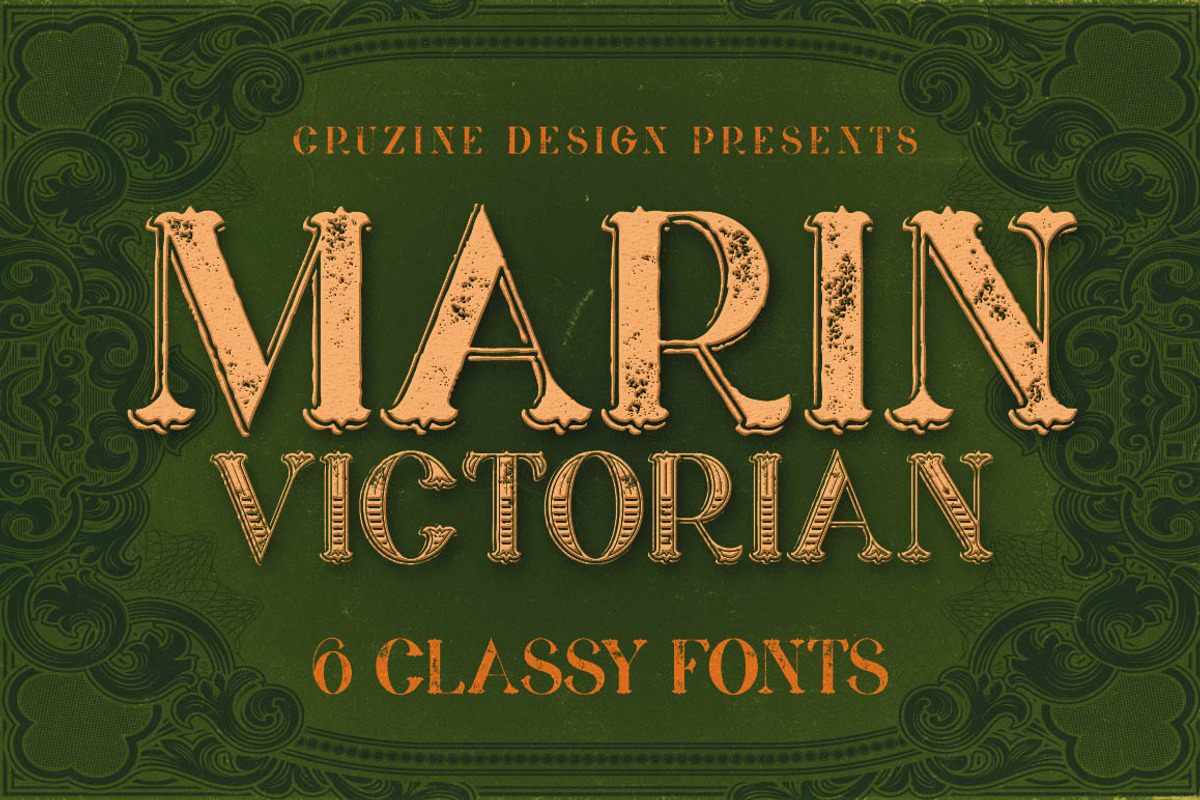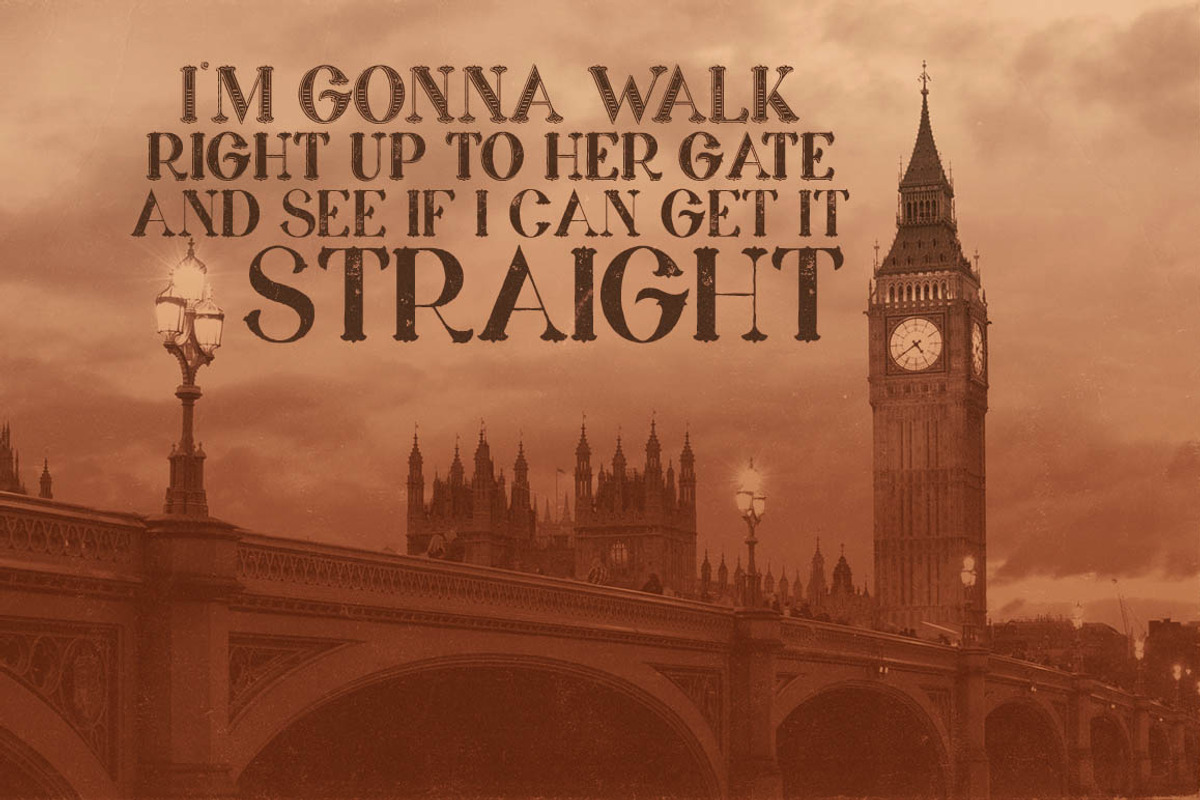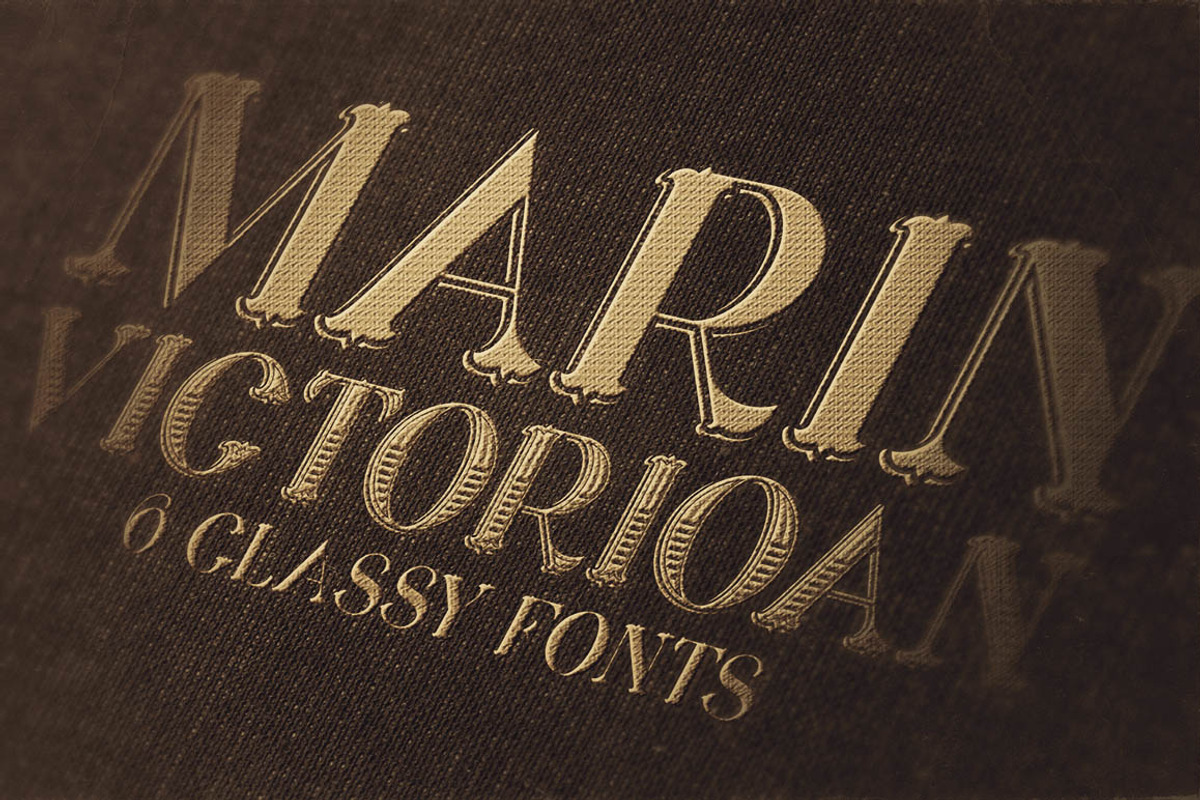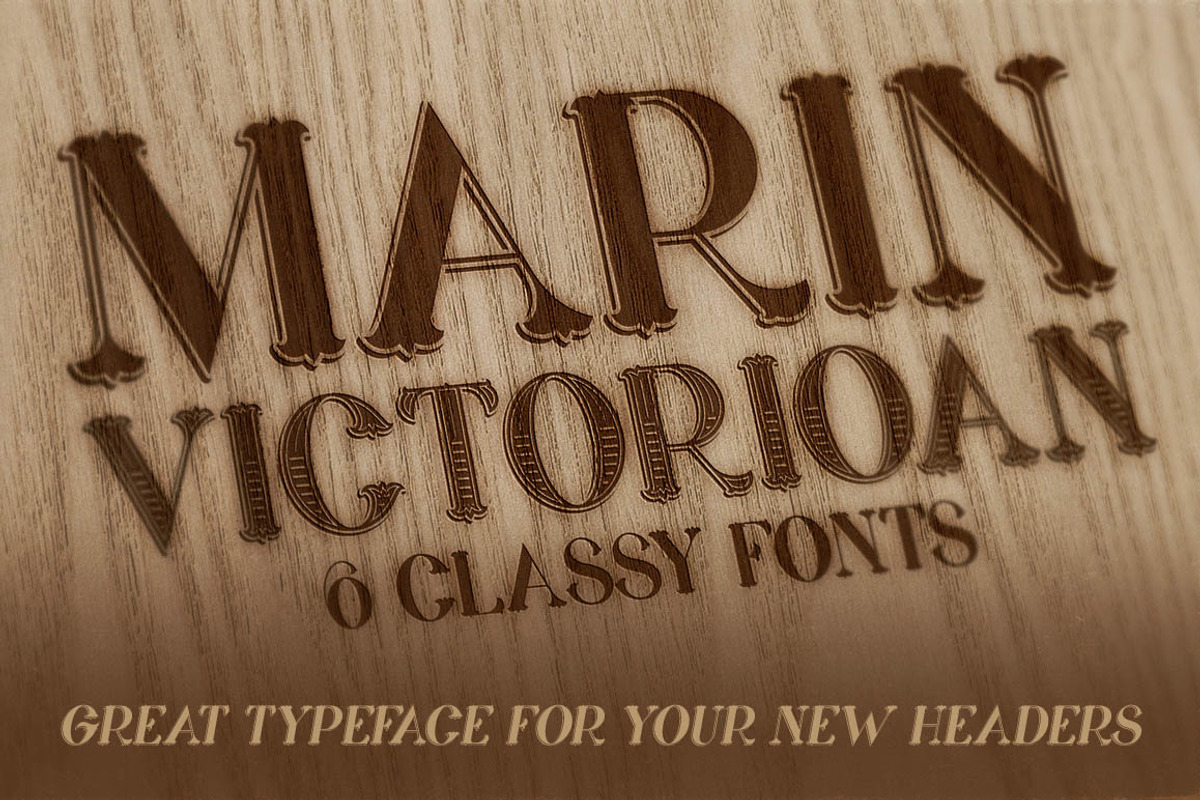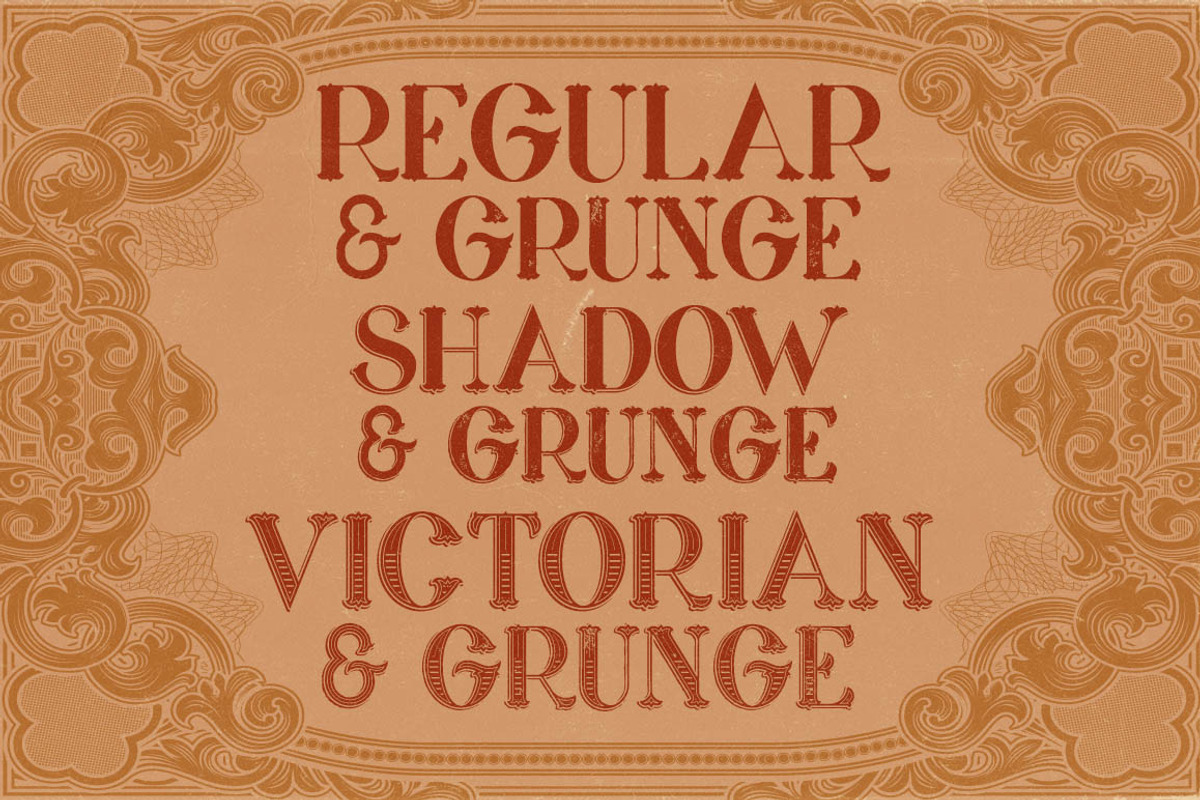
Marin - Victorian Font
Marin - Victorian Font by Cruzine is a font selected for branding, posters, packaging, typography.
Why Marin - Victorian Font is worth a look
Marin - Victorian Font by Cruzine fits naturally into Branding, posters, packaging, typography.